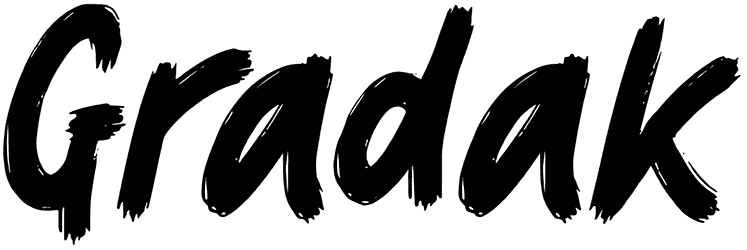
g Gradak Font
To create an artistic face for your layout, it doesn’t need specific details, and a realistic item such as this handwritten font would be perfect. The soft and cool form of the g Gradak font’s letters is going to give a stunning vibe to your creative designs, namely an art gallery poster. Apply this brush font to your next design and enjoy the feedback.